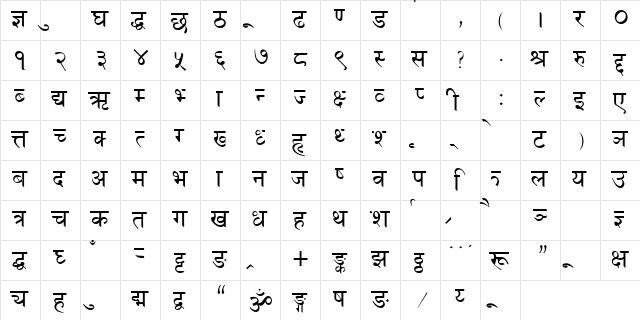
HIMALAYA TT FONT NORMAL
Design Context for HIMALAYA TT FONT Typeface
HIMALAYA TT FONT takes a measured approach to typography — its balanced proportions and neutral character make it a reliable workhorse for both digital and print work.